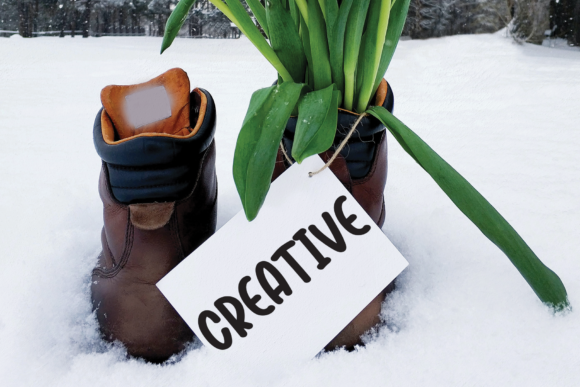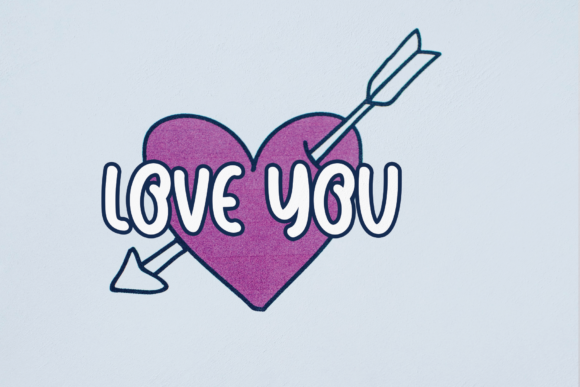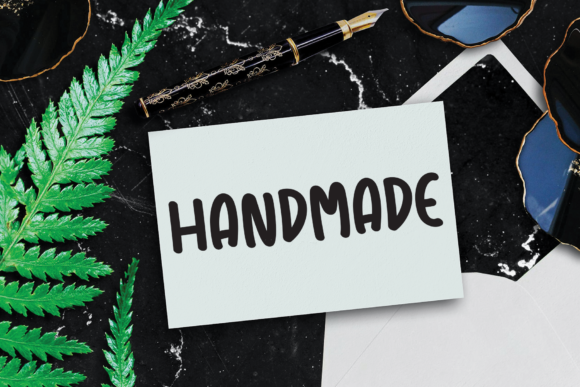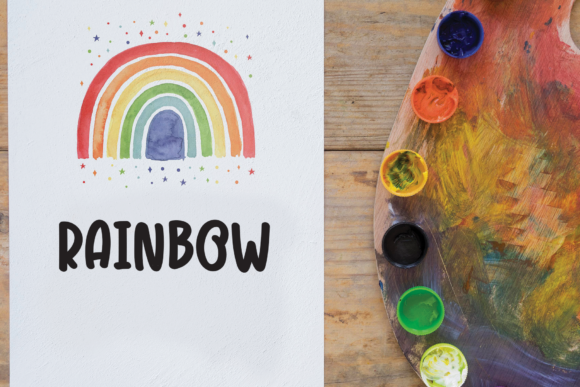
Introducing Barabere Font: The Ultimate Choice for Fun and Cheerful Designs
Are you a designer or crafter looking for a font that can add a touch of fun and friendliness to your creations? Look no further than Barabere Font! This delightful handwritten font is perfect for a wide range of projects, from cartoon-related designs and children’s games to any creation that requires a lovely and cheerful touch.
What Makes Barabere Font So Special?
Barabere Font is a unique and charming font that is sure to capture the hearts of designers and crafters alike. Its fun and friendly appearance makes it an excellent choice for projects that require a playful and approachable feel. Whether you’re creating a children’s book, a game, or a website, Barabere Font is sure to bring a smile to your audience’s faces.
Key Features of Barabere Font
- Handwritten style: Barabere Font has a beautiful, handwritten style that gives it a personal and unique touch.
- Fun and cheerful: The font’s playful and cheerful appearance makes it perfect for projects that require a lighthearted and friendly feel.
- Versatile: Barabere Font can be used for a wide range of projects, from cartoon-related designs and children’s games to websites, posters, and more.
- Easy to read: Despite its playful appearance, Barabere Font is easy to read and understand, making it perfect for body text and headings.
Use Cases for Barabere Font
Barabere Font is a versatile font that can be used for a wide range of projects. Here are some use cases to get you started:
- Children’s books and games: Barabere Font is perfect for children’s books, games, and activities that require a fun and playful touch.
- Cartoon-related designs: The font’s playful and cheerful appearance makes it an excellent choice for cartoon-related designs, such as character designs, posters, and merchandise.
- Websites and blogs: Barabere Font can be used to add a touch of personality to websites and blogs, making them more approachable and engaging.
- Posters and flyers: The font’s bold and playful appearance makes it perfect for posters and flyers that require a attention-grabbing headline.
Tips for Using Barabere Font
Here are some tips to help you get the most out of Barabere Font:
- Use it for headings and titles: Barabere Font is perfect for headings and titles, where its playful and cheerful appearance can really shine.
- Pair it with a sans-serif font: For body text, consider pairing Barabere Font with a clean and simple sans-serif font, such as Arial or Helvetica.
- Experiment with colors: Barabere Font looks great in a variety of colors, so don’t be afraid to experiment and find the perfect color scheme for your project.
In conclusion, Barabere Font is a fun, friendly, and cheerful handwritten font that is perfect for designers and crafters looking to add a touch of personality to their creations. Its versatile and easy-to-read design makes it suitable for a wide range of projects, from children’s books and games to websites and posters. So why not give Barabere Font a try and see how it can bring a smile to your audience’s faces?